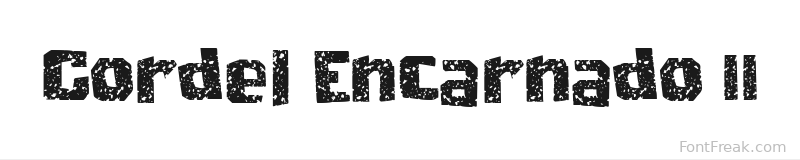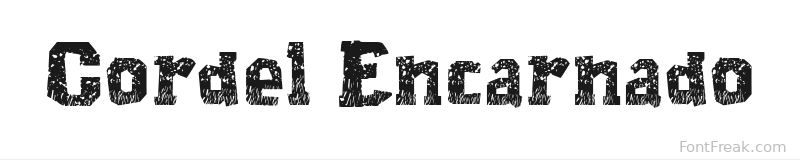
Cordel Encarnado II
Cordel Encarnado
About Cordel Encarnado II
Cordel Encarnado II is a captivating decorative typeface designed by Galdino Otten Fonts, released in 2017. This font belongs to the cordel category, characterized by its bold, expressive style that draws inspiration from traditional Brazilian literature. The visual characteristics of Cordel Encarnado II include a distinct, rough texture that gives it a handmade quality, evoking the charm of artisanal prints. The stroke weight varies, providing an engaging contrast that enhances its visual appeal. The spacing is intentionally compact, which contributes to a dynamic and lively appearance, making it perfect for eye-catching designs.
This font is particularly well-suited for a range of creative applications. Its unique style makes it an excellent choice for wedding invitations, where the decorative flair can add a touch of elegance and individuality. Additionally, it works wonderfully on movie posters, helping to convey themes of adventure and storytelling. Restaurant menus can also benefit from its distinctive look, drawing attention to specific dishes or specials in a fun and inviting manner. Furthermore, small business owners can utilize this font for branding purposes, creating memorable logos and marketing materials that stand out in a competitive market.
Targeted towards graphic designers, small business owners, and content creators, Cordel Encarnado II offers a versatile option for those looking to make a statement in their projects. The font's ability to embody both tradition and creativity ensures that it resonates with a broad audience. For anyone in search of a unique typeface, the Cordel Encarnado II font free download provides an opportunity to incorporate this striking style into your designs. Its distinctive characteristics and cultural inspiration make it a standout choice for numerous design needs.